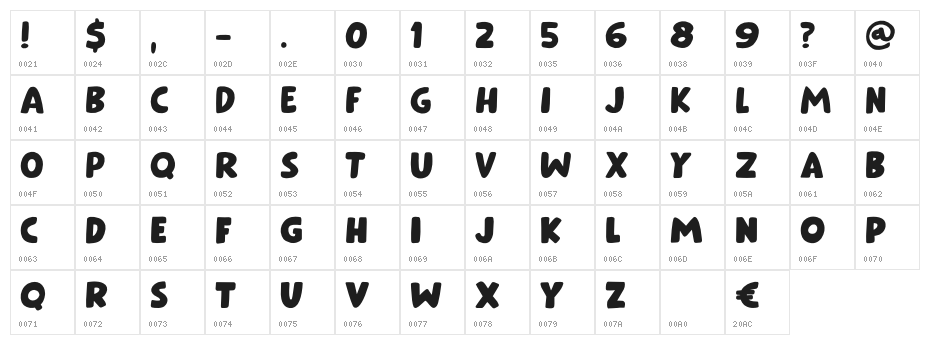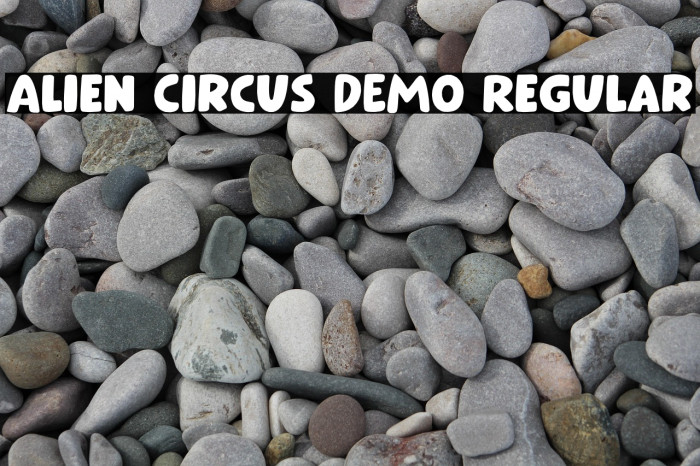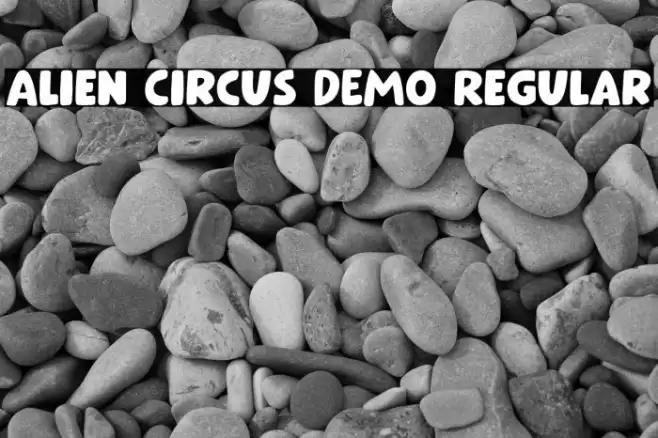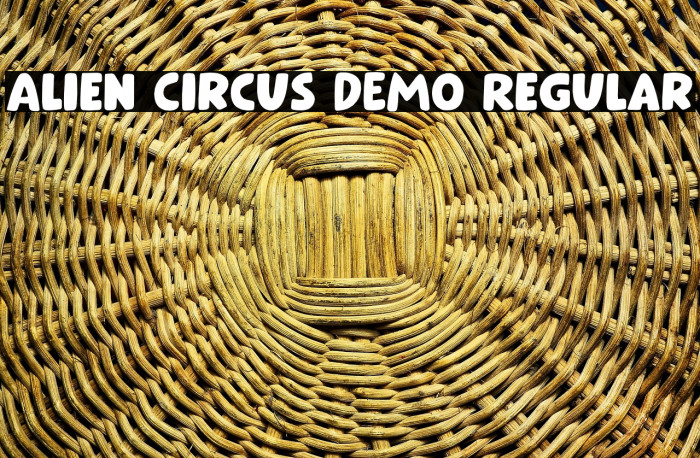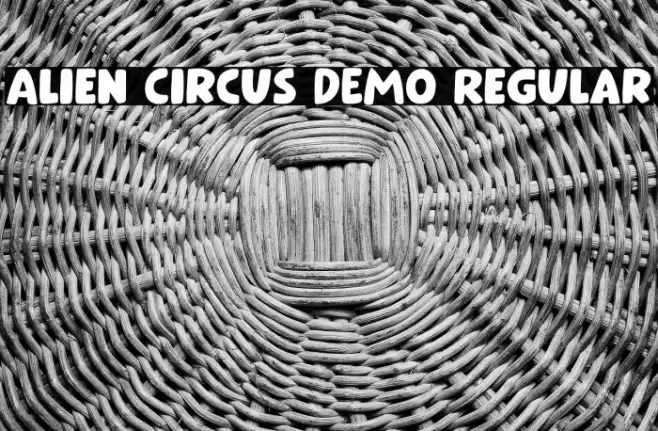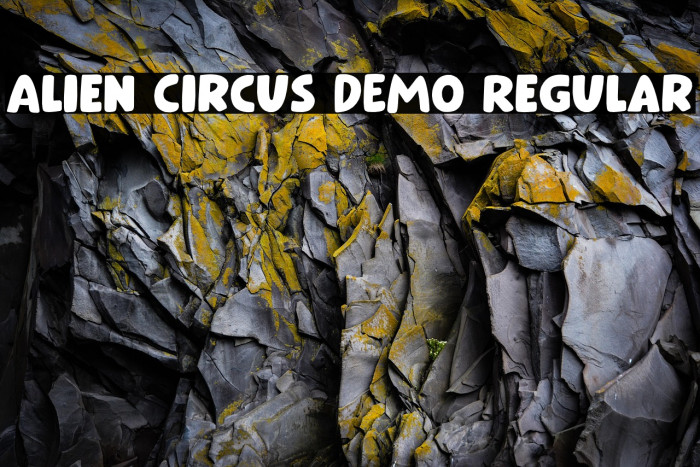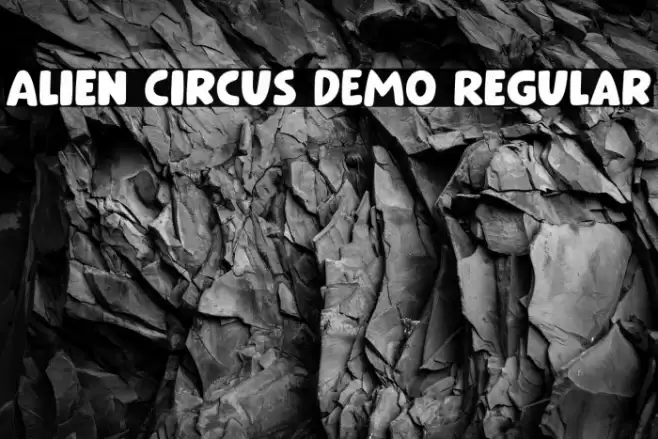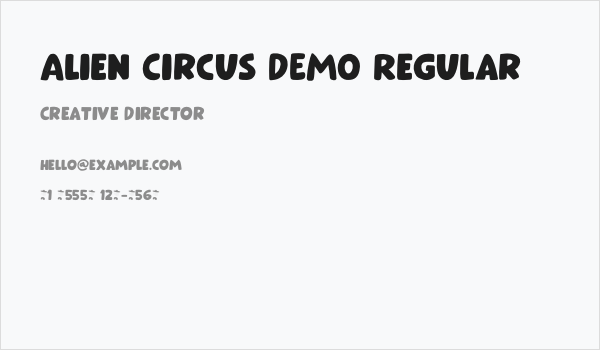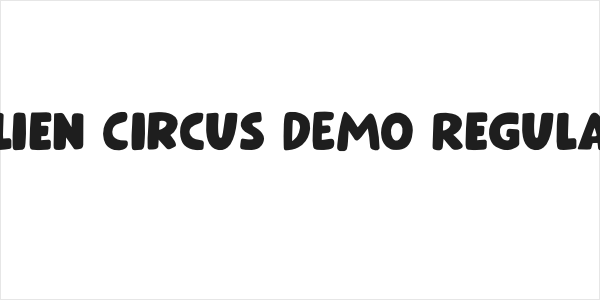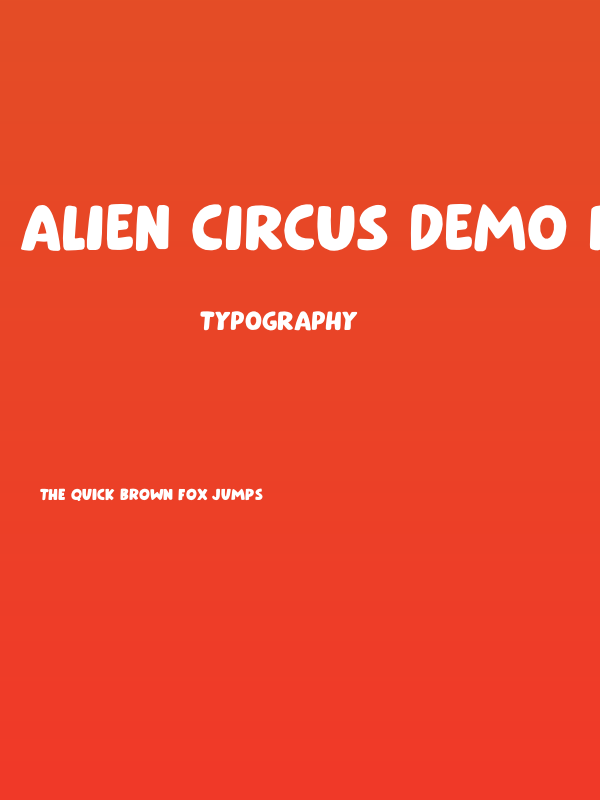
Alien Circus DEMO Regular Font
Alien Circus DEMO Regular Description
This font features a playful and bold design with rounded edges and a whimsical style. The characters are thick and have a slightly irregular shape, giving them a hand-drawn appearance. The font includes both uppercase and lowercase letters, numbers, and a selection of special characters. The overall look is reminiscent of a fun, extraterrestrial theme, with unique symbols that add to its quirky charm. It's ideal for projects that require a lighthearted and eye-catching typeface.
| Proposed Projects | Ideal for children's books, party invitations, playful branding, and themed event posters. |